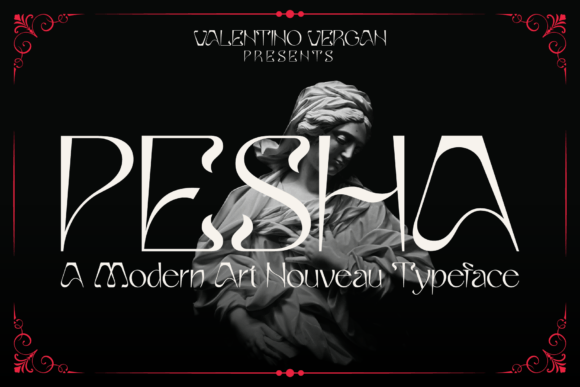
Pesha Font: A Timeless Typeface Inspired by Art Nouveau
In the world of typography, fonts play a crucial role in conveying the tone and personality of a brand, product, or message. With the numerous font styles available, designers and typographers continually seek unique and elegant typefaces that can make their work stand out. One such font that has gained significant attention in recent times is the Pesha font. In this article, we’ll explore the Pesha font, its inspiration, features, and uses, and why it’s an excellent choice for various design projects.
What is Pesha Font?
Pesha is a beautiful and unique sans serif typeface that draws inspiration from the early art nouveau typestyles. The font combines diverse styles from different eras, creating a distinctive blend between contemporary and retro. This fusion of styles makes Pesha a versatile font suitable for various design applications, from elegant titles and magazines to logos, wedding invitations, headlines, and editorials.
Inspiration from Art Nouveau
Art Nouveau, a popular art movement in the late 19th and early 20th centuries, influenced the creation of the Pesha font. Characterized by its sinuous, organic lines and flowing curves, Art Nouveau typography is renowned for its elegance and sophistication. Pesha’s designers drew inspiration from this style, incorporating its essence into a modern sans serif font. The result is a typeface that exudes refinement, luxury, and classic charm.
Key Features of Pesha Font
Pesha’s unique features make it an attractive choice for designers and typographers. Some of its notable characteristics include:
- Unique letterforms: Pesha’s letters are carefully crafted to create a distinctive and elegant look. The font’s sans serif design ensures clarity and legibility, making it suitable for various applications.
- Art Nouveau influence: The font’s Art Nouveau inspiration is evident in its flowing curves and organic lines, adding a touch of sophistication and luxury to any design.
- Versatility: Pesha’s blend of contemporary and retro styles makes it suitable for a wide range of design projects, from elegant titles and magazines to logos and wedding invitations.
- Legibility: Pesha’s clear and legible design ensures that it can be used for body text, headlines, and titles, making it a versatile font for various design applications.
Uses of Pesha Font
Pesha’s elegance and versatility make it an excellent choice for various design projects, including:
- Elegant titles: Pesha’s unique letterforms and Art Nouveau inspiration make it perfect for creating elegant titles, headings, and subheadings.
- Magazines and editorials: The font’s legibility and sophistication make it suitable for magazine and editorial design, adding a touch of luxury and refinement to any publication.
- Logos and branding: Pesha’s distinctive design makes it an excellent choice for logos and branding, helping to create a unique and memorable visual identity.
- Wedding invitations: The font’s elegance and classic charm make it perfect for wedding invitations, adding a touch of sophistication and romance to any design.
- Headlines and advertising: Pesha’s clear and legible design makes it suitable for headlines and advertising, ensuring that your message stands out and grabs attention.
Why Choose Pesha Font?
With the numerous fonts available, why should you choose Pesha for your design project? Here are some compelling reasons:
- Unique design: Pesha’s distinctive blend of contemporary and retro styles ensures that your design stands out from the crowd.
- Elegance and sophistication: The font’s Art Nouveau inspiration and elegant letterforms add a touch of luxury and refinement to any design.
- Versatility: Pesha’s legibility and versatility make it suitable for various design applications, from elegant titles and magazines to logos and wedding invitations.
- Easy to read: Pesha’s clear and legible design ensures that your message is communicated effectively, making it perfect for body text, headlines, and titles.
In conclusion, Pesha font is a beautiful and unique sans serif typeface that is inspired by the early art nouveau typestyles. Its blend of contemporary and retro styles makes it a versatile font suitable for various design applications. With its elegant letterforms, Art Nouveau inspiration, and legibility, Pesha is an excellent choice for designers and typographers seeking to add a touch of sophistication and luxury to their work. Whether you’re designing elegant titles, magazines, logos, wedding invitations, headlines, or editorials, Pesha font is sure to make your design stand out.